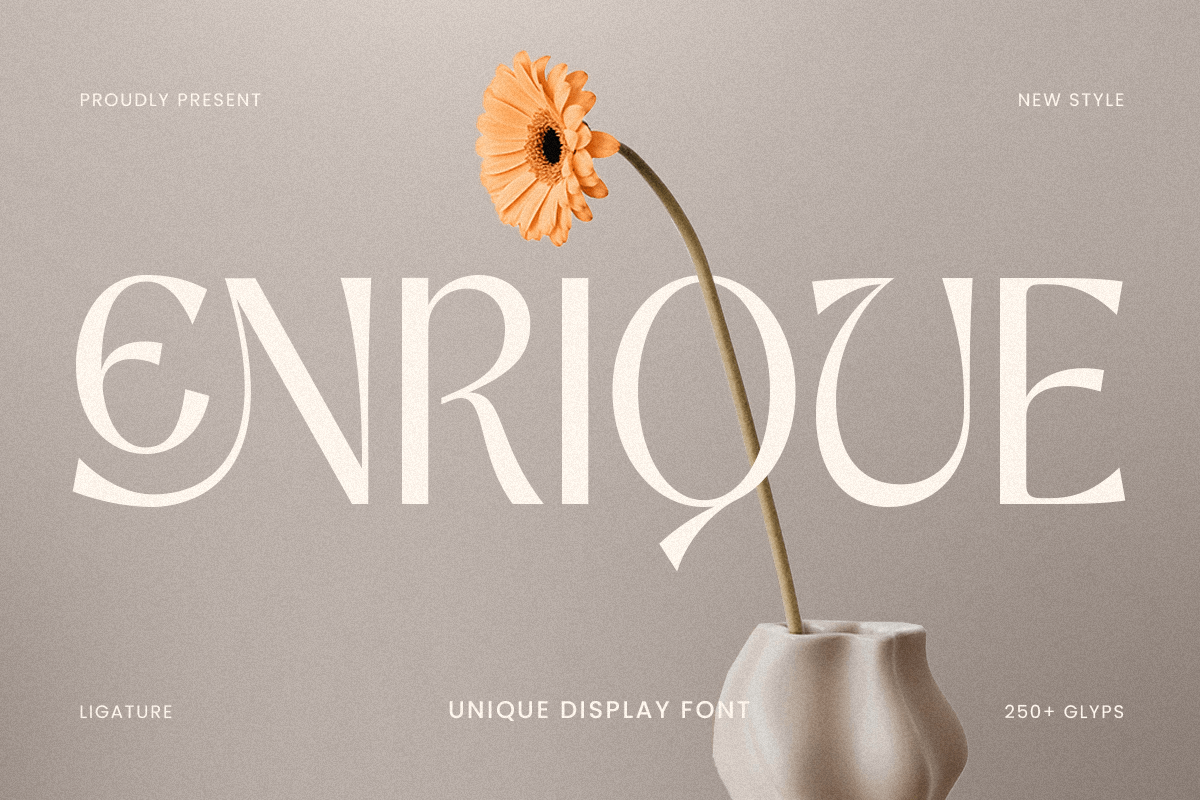
Enrique
-Unique Display FontEnrique is a unique display font crafted to add a striking and creative touch to your design projects. With its modern and bold characteristics, Enrique stands out as an ideal typeface for branding, poster creation, and impactful graphic designs. This font is designed to captivate attention and evoke a sense of artistry that sets your work apart.
Whether you’re working on advertising, social media visuals, or any print material, Enrique’s unique style ensures your content is both memorable and visually appealing. Its versatile design allows it to seamlessly fit into contemporary and artistic projects, adding a distinctive flair to your work.
Enrique - Unique Display Font Features:
Artistic Display Characters
Unique Punctuation, Number, and Symbol